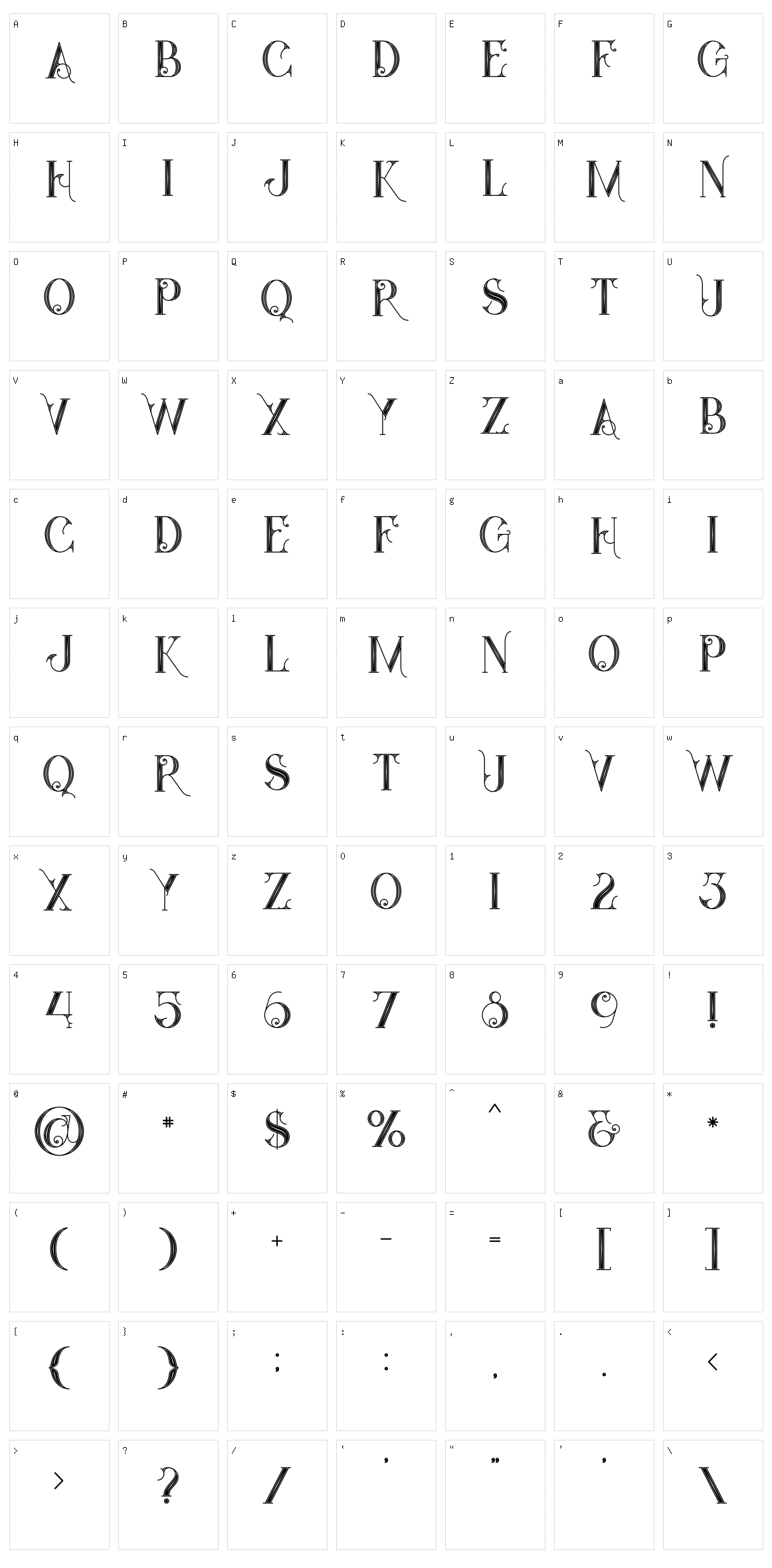
The free font Star Black Inline is carefully designed by Peter Olexa, showcasing a thoughtful balance of creativity and usability and falls under the Retro font style. When you download the ZIP file, it contains only 276 KB of font files, making it lightweight and quick to download. Please review the license details below to understand permitted usage and distribution rights. If license information is not available, we recommend using this font for personal projects only or contacting the author directly for commercial usage permissions.
Star Black Inline